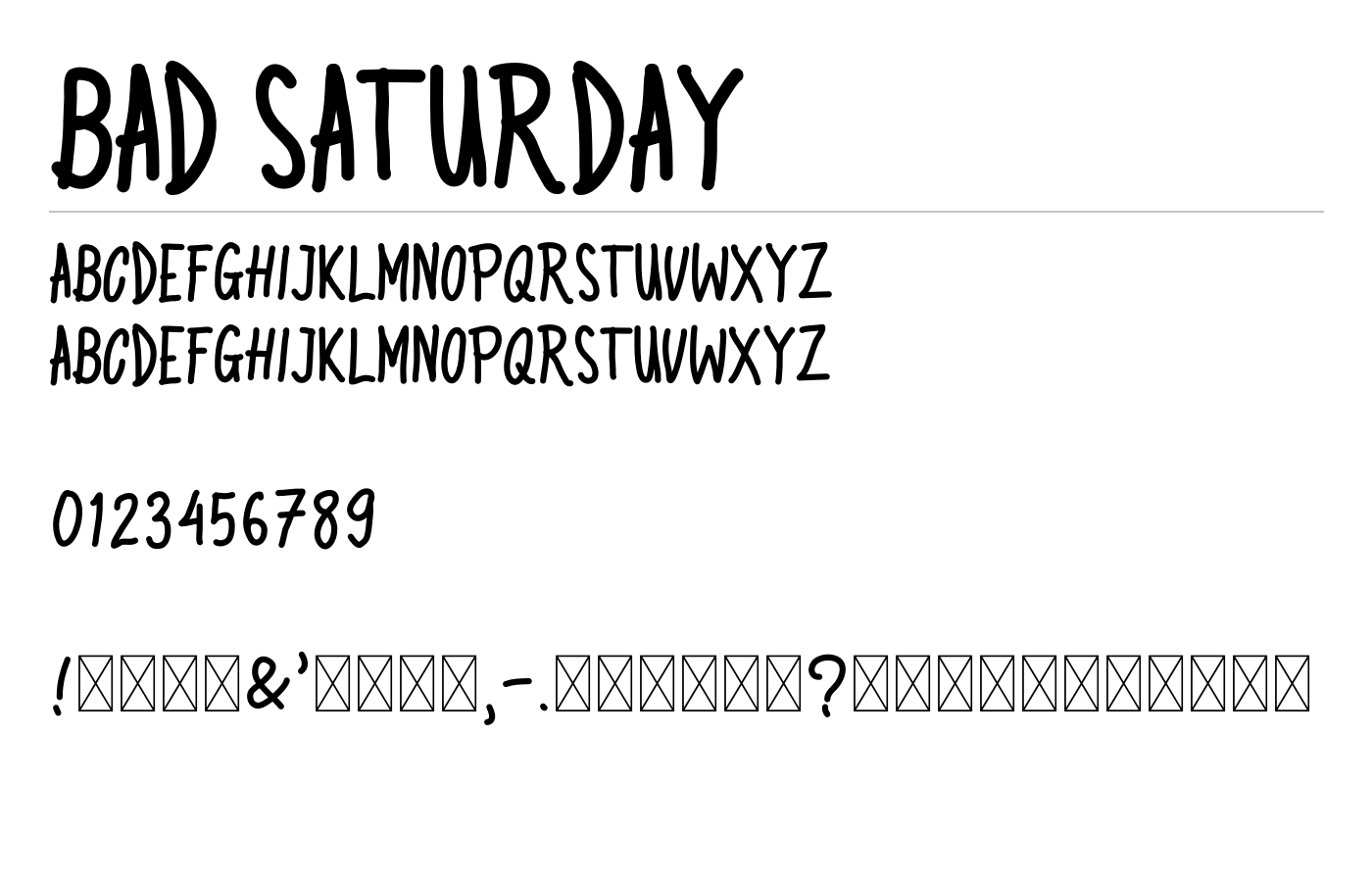
Bad Saturday is a playful, hand-drawn sans serif font with a casual, friendly vibe. Its tall, slightly irregular letterforms and energetic strokes give it a fun, informal feel perfect for creative projects, children's designs, and lighthearted branding. This font works well in headlines and logos where a quirky, approachable personality is desired.
Bad Saturday Font